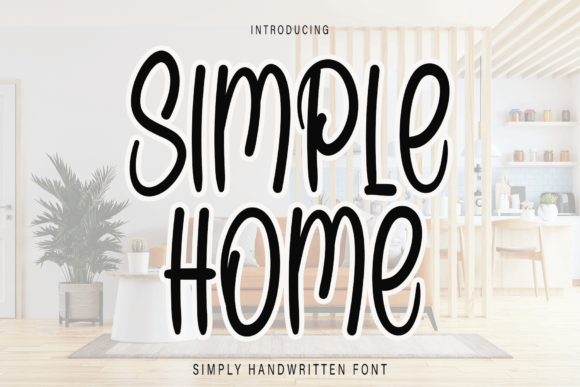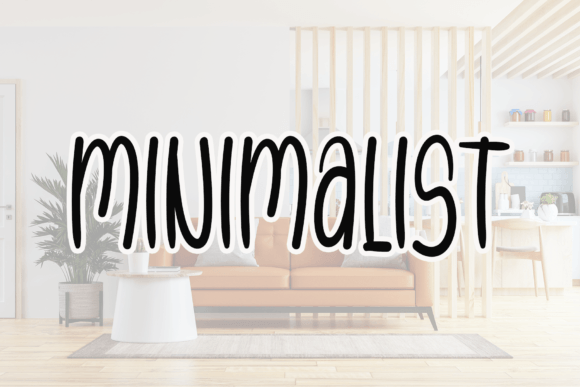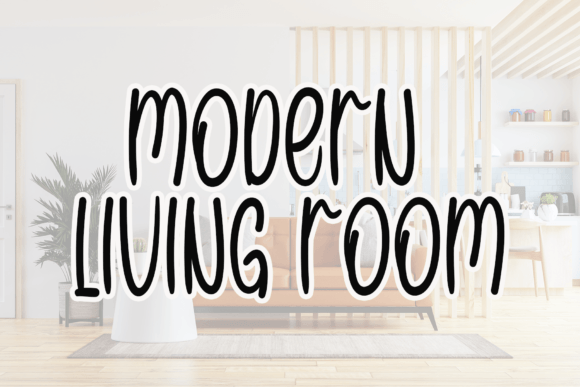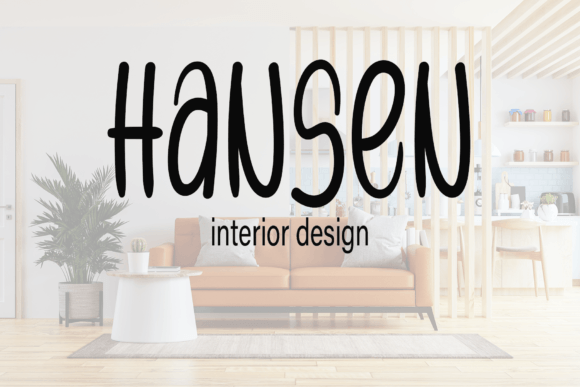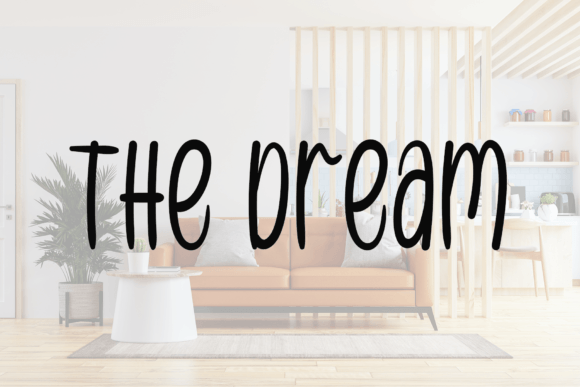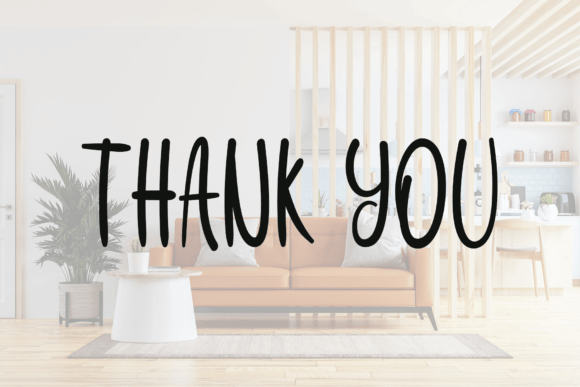
Simple Home Font
About Simple Home Font
“Simple Home” unfolds as a neat and beautiful handwritten font, characterized by an elegant touch that brings sophistication to your favorite projects. This font, with its distinct and timeless style, becomes the perfect choice to infuse a touch of grace into your creative endeavors. Fall in love with the understated charm of Simple Home and allow it to be the driving force behind the creation of truly spectacular designs.
Simple Home’s neat and beautiful attributes make it a versatile font suitable for a range of design applications. Whether you’re working on invitations, greeting cards, branding materials, or any other creative project, this font adds a refined and elegant aesthetic. Its handwritten quality introduces a personal and human element, making it particularly well-suited for projects that aim to convey warmth and authenticity.
The elegance inherent in Simple Home contributes to its timeless appeal. This font transcends fleeting trends, offering a classic and enduring style that withstands the test of time. Its versatility enables it to adapt seamlessly to different design themes and contexts, ensuring that it remains a reliable choice for a diverse array of creative expressions.
By selecting Simple Home, you are embracing a distinct and sophisticated aura for your designs. Its refined strokes and subtle details make it a font that resonates with those who appreciate simplicity and craftsmanship. Whether used for headlines, quotes, or as a central element in your designs, Simple Home possesses the innate ability to elevate the visual impact of your projects.
In summary, Simple Home is not just a font; it’s a design asset that adds an elegant touch to your creative toolbox. Its neat and beautiful handwritten style, combined with a timeless charm, positions it as the ideal choice for creating spectacular designs that leave a lasting impression. Embrace the unique qualities of Simple Home and let it be the elegant force that transforms your favorite projects into works of visual excellence.